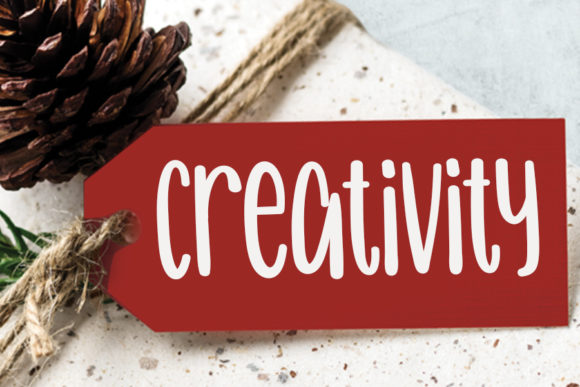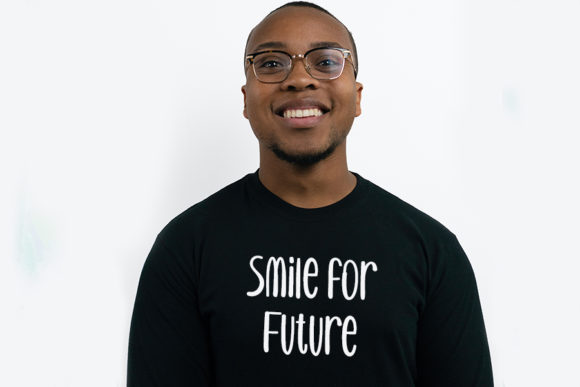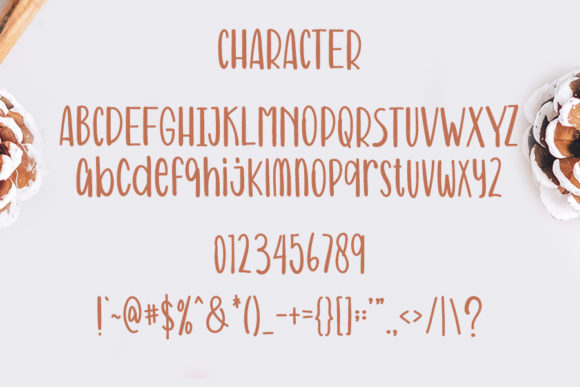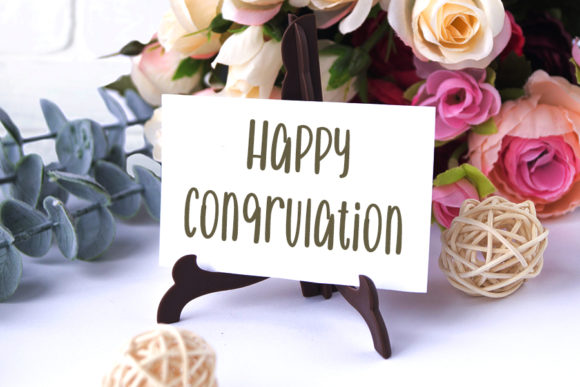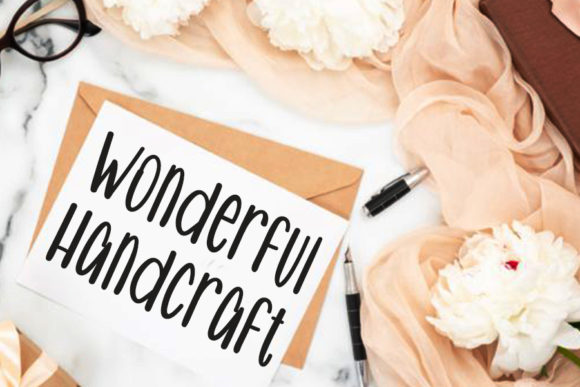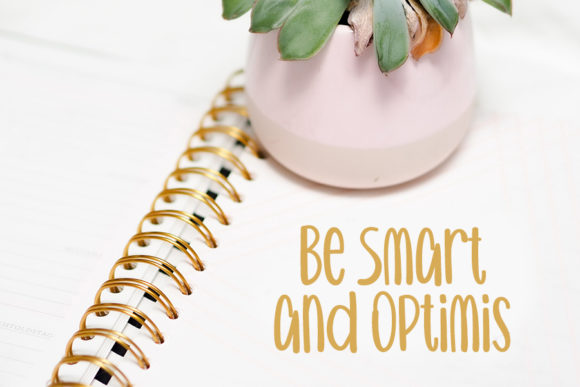
Introducing Handmade Valentine Font: The Perfect Addition to Your Creative Projects
Are you a designer, crafter, or DIY enthusiast looking for a unique and playful font to add a personal touch to your projects? Look no further than the Handmade Valentine Font! This beautiful, handwritten font is perfect for anyone who wants to turn their creative ideas into true works of art.
What is Handmade Valentine Font?
Handmade Valentine is a neat and playful handwritten font that is sure to capture the hearts of designers, crafters, and DIY enthusiasts alike. With its delicate and whimsical feel, this font is perfect for a wide range of creative projects, from Instagram graphics and social media posts to calligraphy scripts and handmade crafts.
Key Features of Handmade Valentine Font
- Playful and Whimsical: Handmade Valentine Font has a playful and whimsical feel that is sure to add a touch of personality to your projects.
- Handwritten Style: This font has a beautiful, handwritten style that is perfect for creating unique and personalized designs.
- Neat and Legible: Despite its playful feel, Handmade Valentine Font is neat and legible, making it perfect for use in a wide range of creative projects.
- Versatile: This font is versatile and can be used in a variety of creative projects, from Instagram graphics and social media posts to calligraphy scripts and handmade crafts.
Uses for Handmade Valentine Font
Handmade Valentine Font is perfect for a wide range of creative projects, including:
- Instagram Graphics: Add a personal touch to your Instagram graphics and social media posts with this beautiful, handwritten font.
- Calligraphy Scripts: Use Handmade Valentine Font to create beautiful calligraphy scripts for DIY projects, such as wedding invitations, greeting cards, and gift tags.
- Handmade Crafts: This font is perfect for crafters who want to add a personal touch to their handmade crafts, such as knitted items, jewelry, and home decor.
- Stationery and Gift Tags: Use Handmade Valentine Font to create beautiful stationery and gift tags that are sure to impress.
Why Choose Handmade Valentine Font?
There are many reasons why designers, crafters, and DIY enthusiasts should choose Handmade Valentine Font for their creative projects. Here are just a few:
- Unique and Playful: This font has a unique and playful feel that is sure to set your projects apart from the rest.
- Easy to Read: Despite its playful feel, Handmade Valentine Font is easy to read and understand, making it perfect for use in a wide range of creative projects.
- High-Quality: This font is high-quality and is sure to provide you with the professional results you’re looking for.
- Versatile: Handmade Valentine Font is versatile and can be used in a variety of creative projects, making it a great addition to any design or crafting toolkit.
Tips for Using Handmade Valentine Font
Here are a few tips for using Handmade Valentine Font in your creative projects:
- Experiment with Different Sizes: Try using Handmade Valentine Font in different sizes to add visual interest to your projects.
- Combine with Other Fonts: Combine Handmade Valentine Font with other fonts to create unique and interesting typography.
- Use in Combination with Images: Use Handmade Valentine Font in combination with images to create beautiful and eye-catching graphics.
- Make it Your Own: Don’t be afraid to make Handmade Valentine Font your own by adding your own personal touch and style.
In conclusion, Handmade Valentine Font is a beautiful and versatile handwritten font that is perfect for designers, crafters, and DIY enthusiasts who want to add a personal touch to their creative projects. With its playful and whimsical feel, this font is sure to capture the hearts of anyone who sees it. Whether you’re looking for fonts for Instagram or calligraphy scripts for DIY projects, Handmade Valentine Font is the perfect choice.